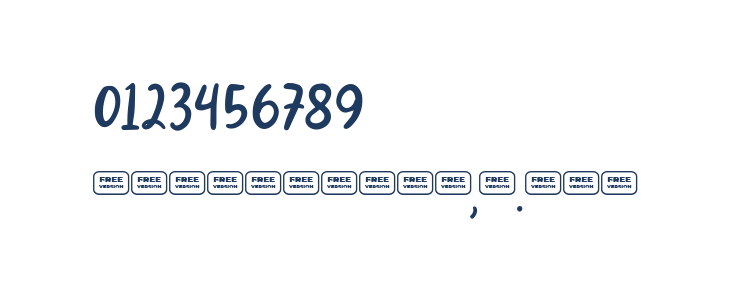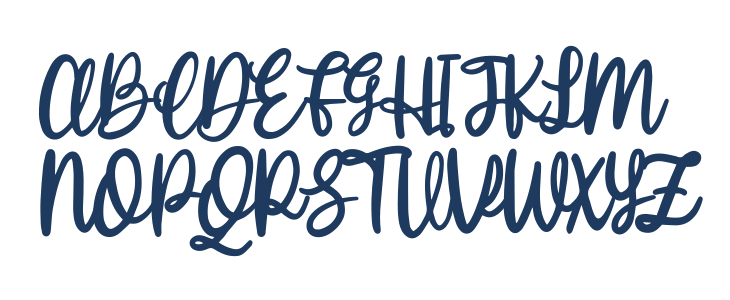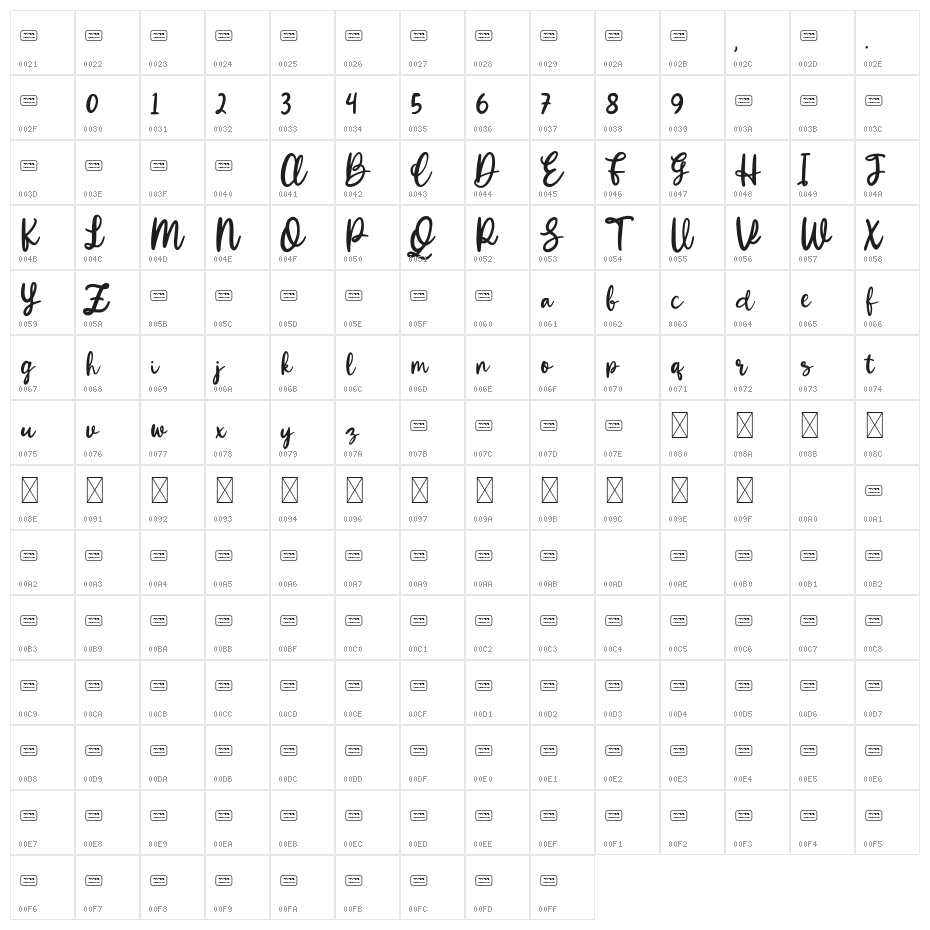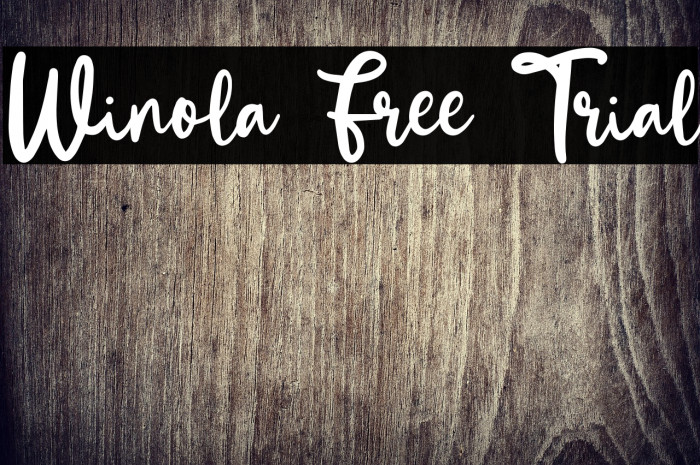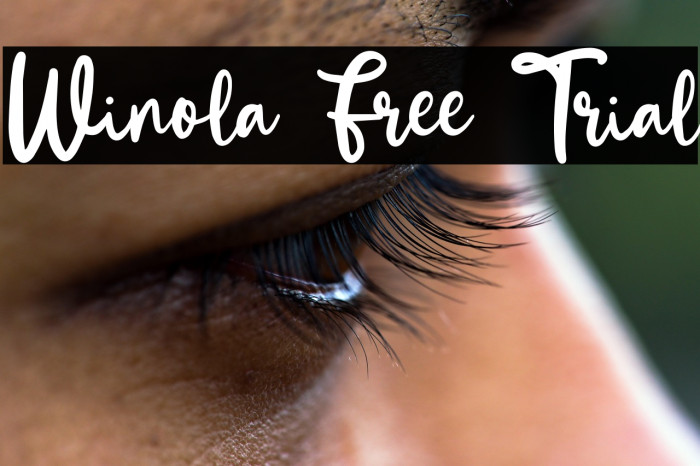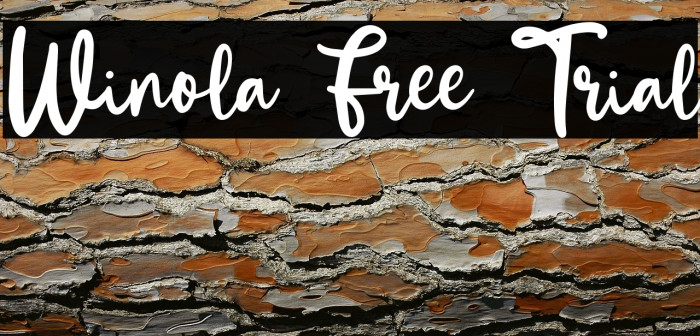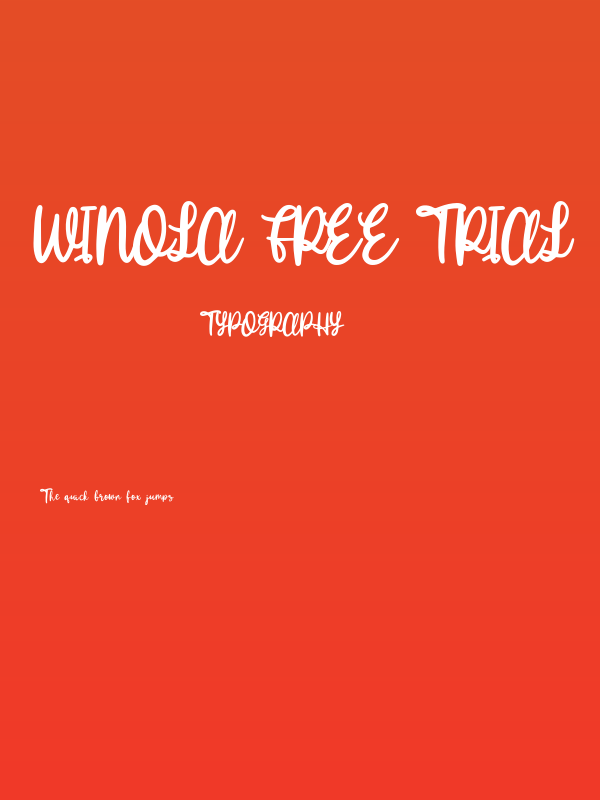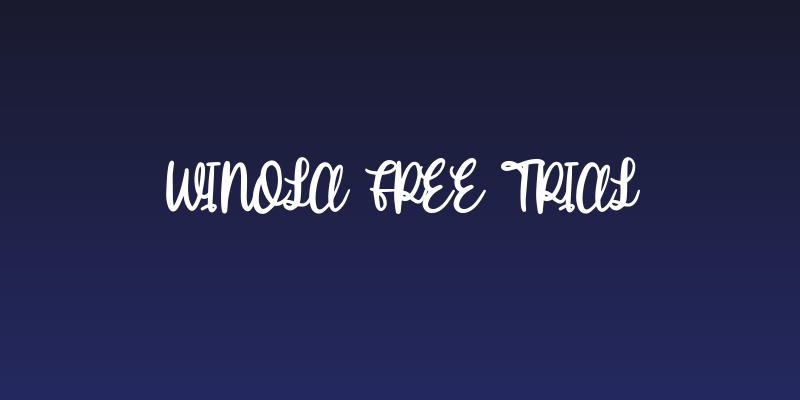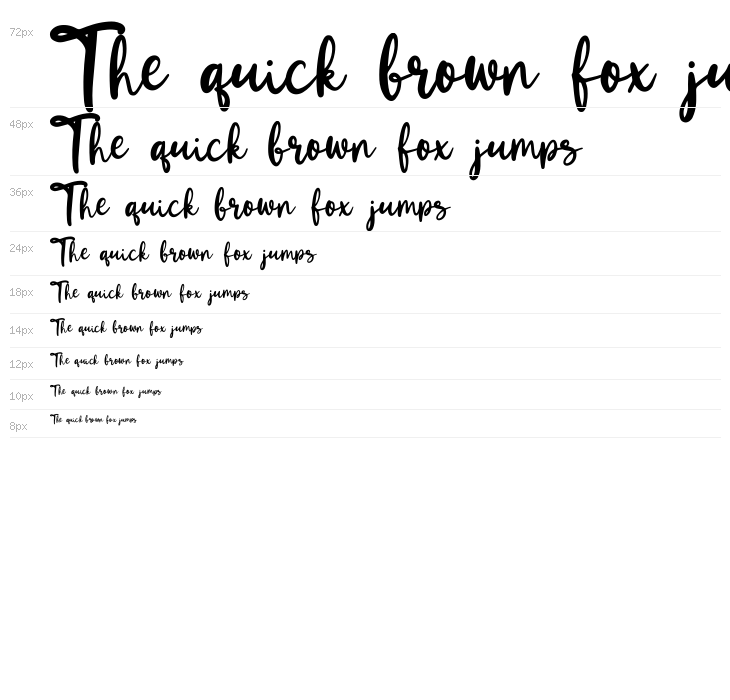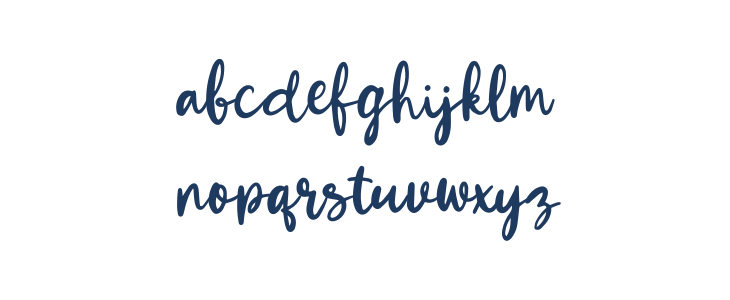
Winola Free Trial Font
A casual, handwritten script font with a playful and flowing style, featuring both uppercase and lowercase letters, numbers, and special characters.
| Overall Style | Casual, Playful, Handwritten |